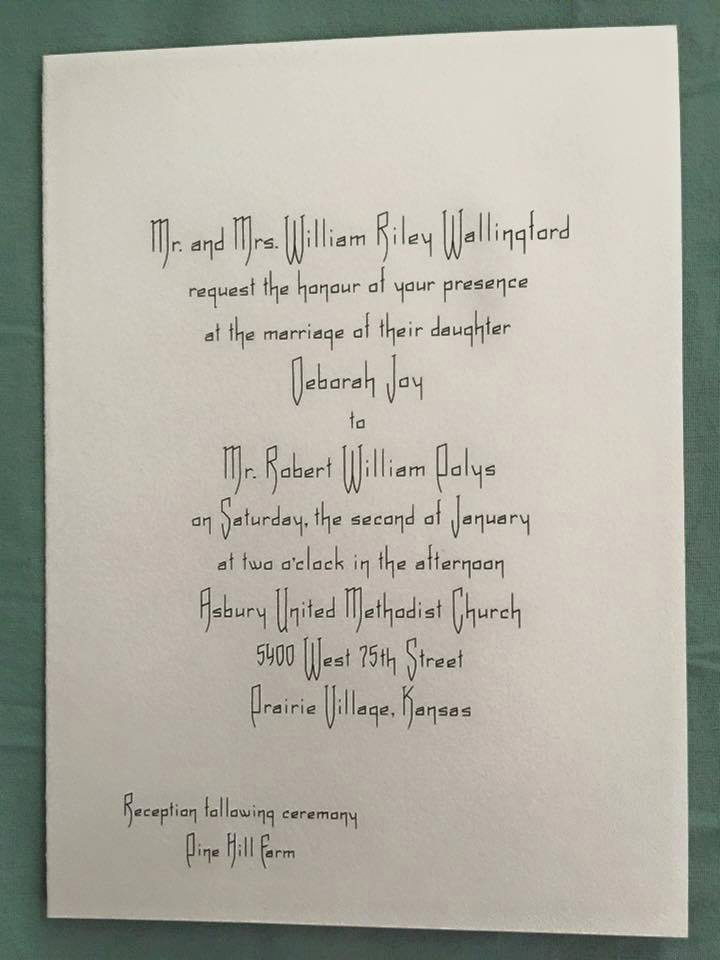
This font was used for my client's grandparents (1930s) wedding invitations, again for her parents (1982) and would like to use it for her own as well!
Both pieces were printed before digital typography, which means these letters were created either by metal type or an engraver's template. I know of no digital font which is a match. Therefore, your best option is to hire a lettering artist to create a new invitation. A good letterer, armed with the samples from the previous invitations, will have no trouble reproducing the style, and the cost may be lower than you think.